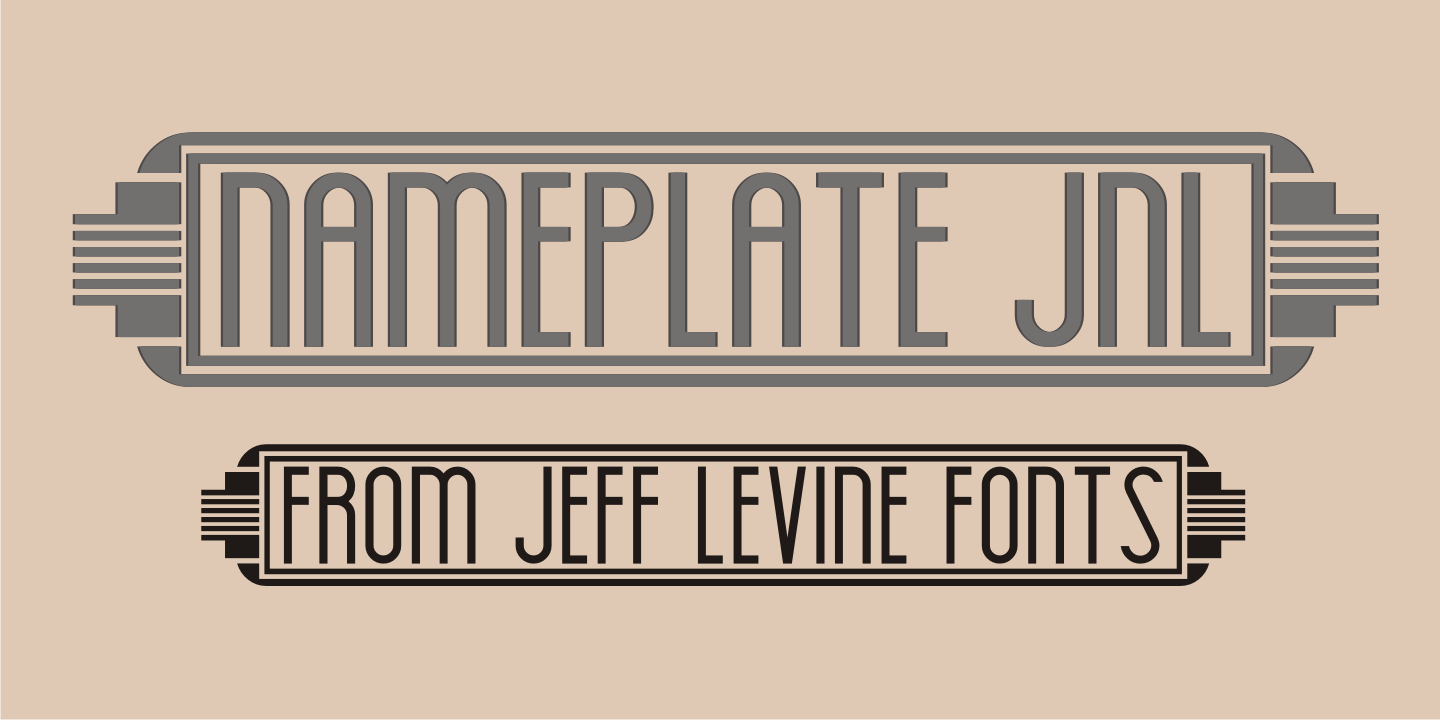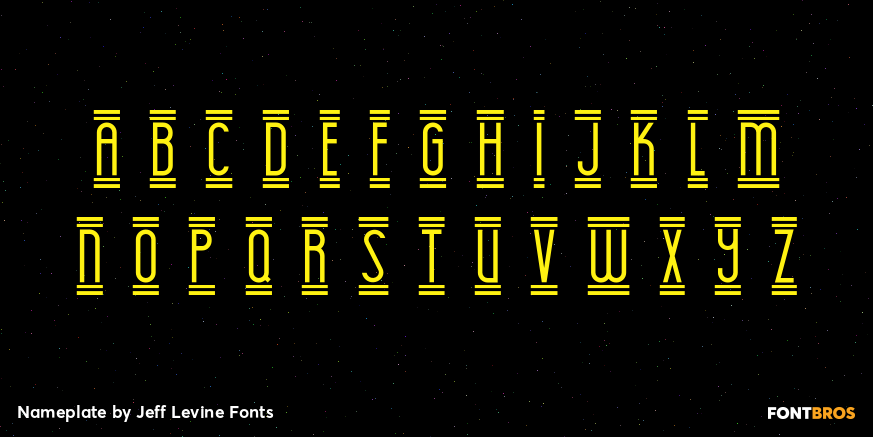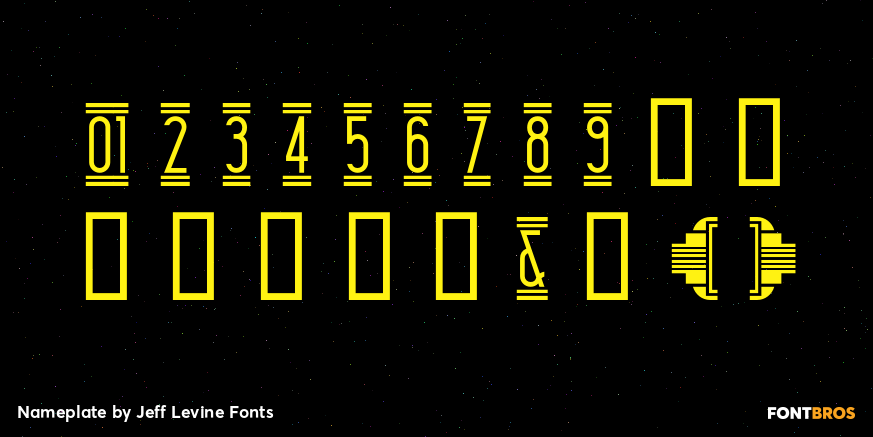
Nameplate
Two attractive cast metal door signs reading 'Men” and 'Ladies” from back in the Art Deco era inspired the idea for Nameplate JNL.
The left parenthesis key starts the border decoration, and the right parenthesis key closes it off.
Nameplate JNL has just a basic A-Z and numeral set; the letters 'floating' within the parallel lines of the border to form complete nameplates, apartment numbers or any similarly encased words.
A period, comma, apostrophe and dash are on their respective keys. A small blank space is one the left bracket key, a medium space is on the right bracket key and a large space is on the left brace key. There is a small, complete frame on the right brace key.
For names such as 'MacDonald” or 'McIntyre”, the small 'ac' is on the colon key and the small 'c' is on the semicolon key.
No kerning has been applied in order to give the type more of an antique, "mechanically assembled" look.